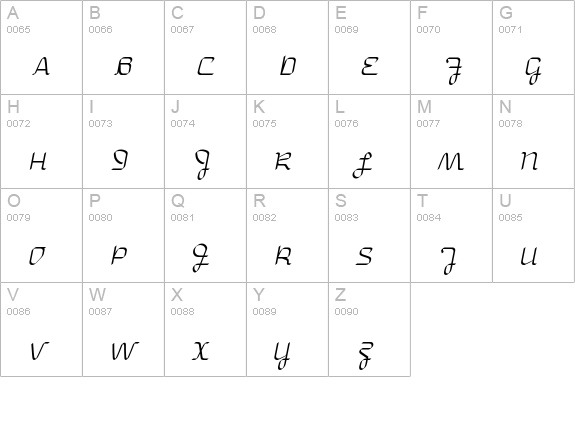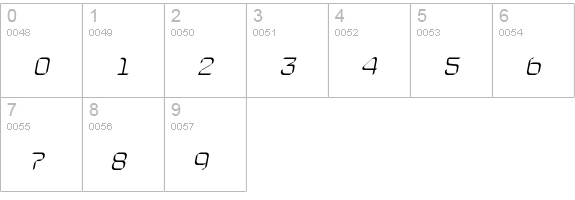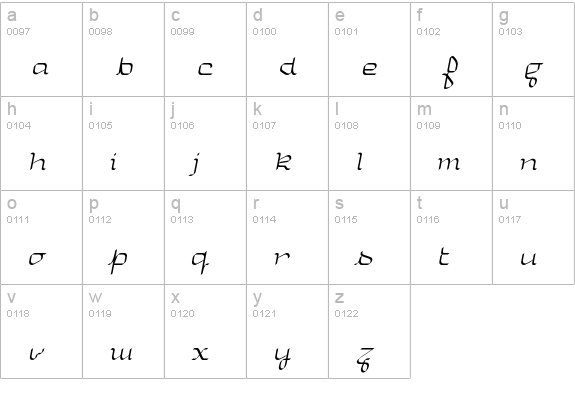
Uniglow-FiftyCursive Font Details
Introducing Uniglow-FiftyCursive, a font that effortlessly combines elegance and modernity. This exquisite typeface is the perfect choice for those seeking a sophisticated yet contemporary look for their designs. With its beautifully flowing cursive style, Uniglow-FiftyCursive adds a touch of grace and refinement to any project. Uniglow-FiftyCursive stands out from the crowd with its unique and captivating letterforms. Each character is meticulously crafted, showcasing intricate details that are sure to catch the eye. The fluid strokes and gentle curves of this font create a harmonious balance, resulting in a truly mesmerizing visual experience. What sets Uniglow-FiftyCursive apart is not only its remarkable aesthetics but also its versatility. Whether you're designing a logo, creating a poster, or crafting an invitation, this font adapts effortlessly to any context. Its clean and legible appearance ensures that your message is conveyed with utmost clarity, while its distinctive personality adds a touch of sophistication. The best part? Uniglow-FiftyCursive is absolutely free! Yes, you heard it right. This exceptional font is freely available to download at FontsMarket.com. Now, you can elevate your designs without breaking the bank. Embrace the beauty and elegance of Uniglow-FiftyCursive, and let your creativity soar to new heights. Don't miss out on this incredible opportunity to enhance your projects with the timeless allure of Uniglow-FiftyCursive. Download this font today and unlock a world of possibilities. Whether you're a professional designer or a passionate enthusiast, Uniglow-FiftyCursive is the perfect companion for your creative journey. Experience the freedom of expression and the joy of design with Uniglow-FiftyCursive – the font that encapsulates elegance, modernity, and most importantly, it's free!